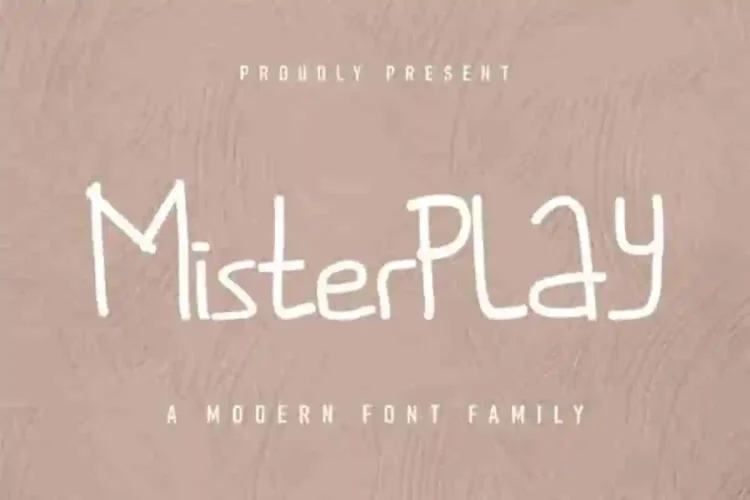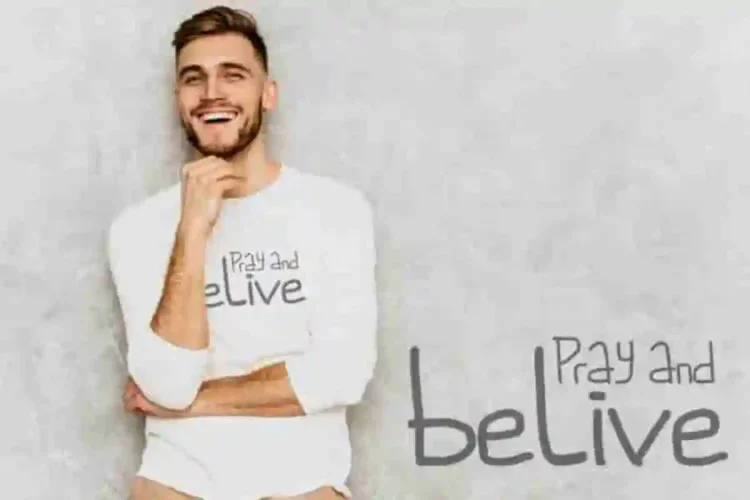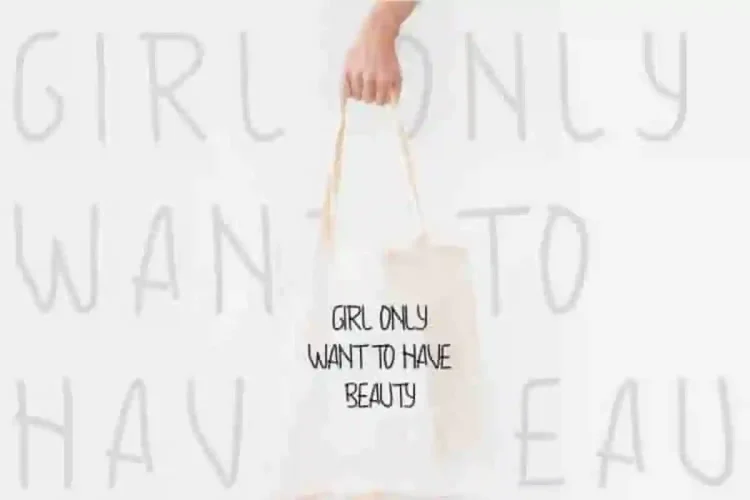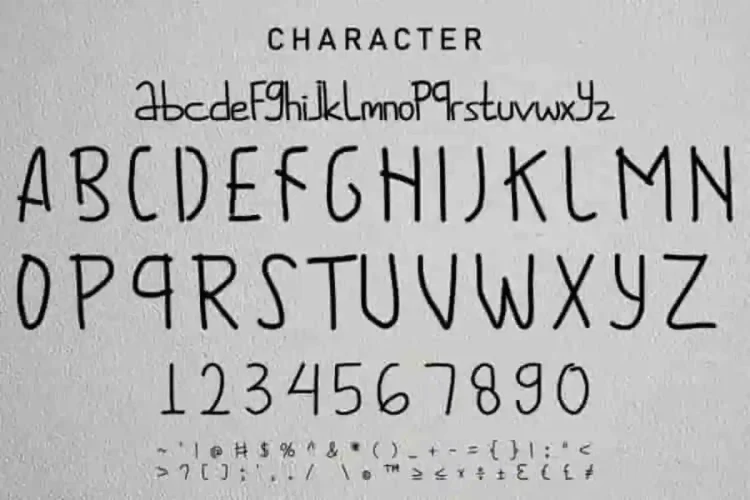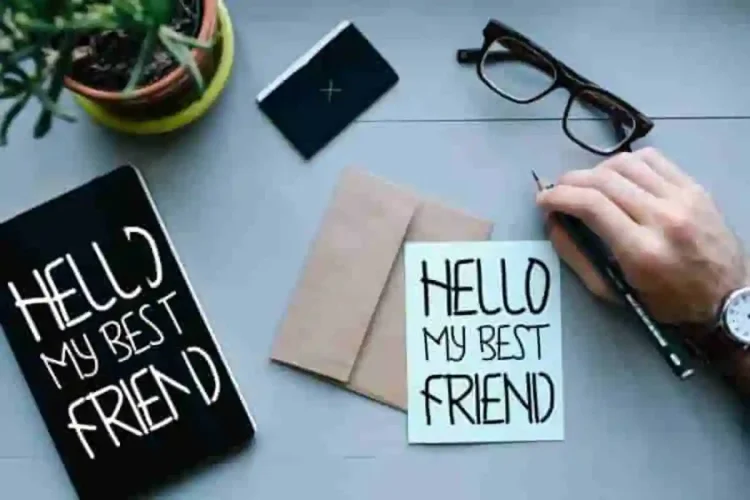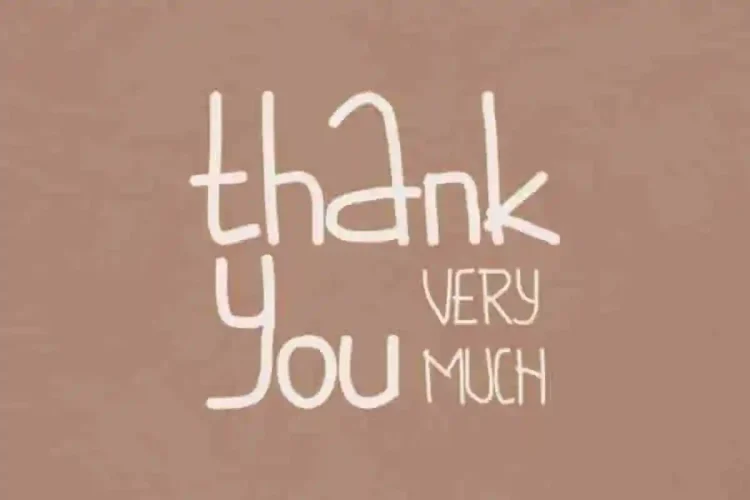
Misterplay Comic Font is a playful display font with comic-like shape writing style effect. We made it uniquely with special shapes inspired from kids first handwriting. The font will looks good for many projects : games, children books, products, merchandising, cover, banner, tags, cards etc. It will be great for fun projects, kids theme, school, science project etc.